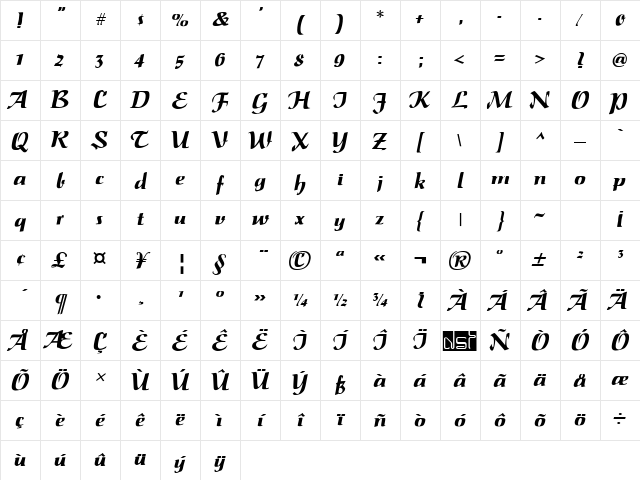
Saltino Regular
Design Context for Saltino
Saltino is a composed and adaptable typeface that performs quietly and consistently across a wide range of design contexts.